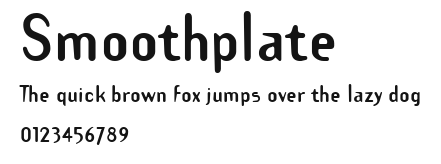
Smoothplate Preview
• Font Name: Smoothplate
• Font Style: Black
• Full Font Name: Smoothplate Black
About Smoothplate.ttf
Smoothplate.ttf is a modern, elegant sans-serif font designed for ultimate readability and visual harmony. Perfect for branding, headlines, web design, and print materials.